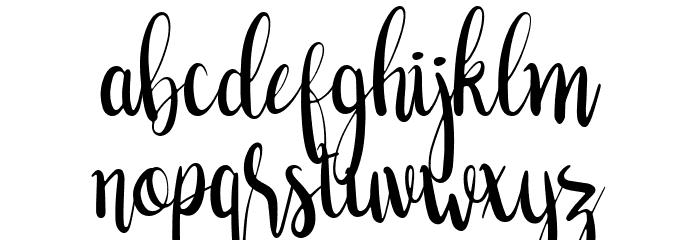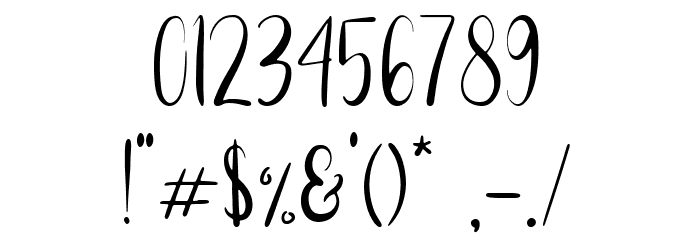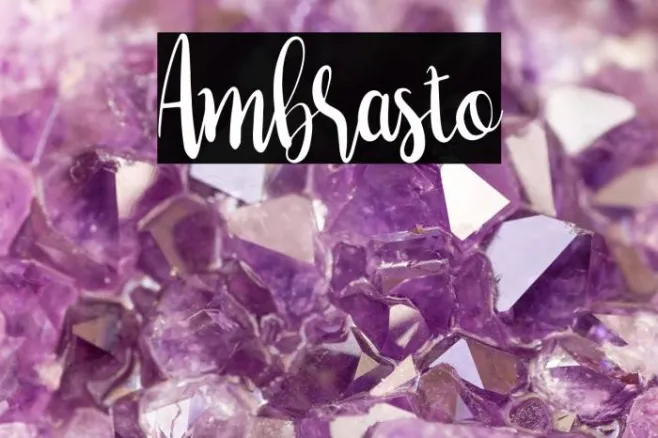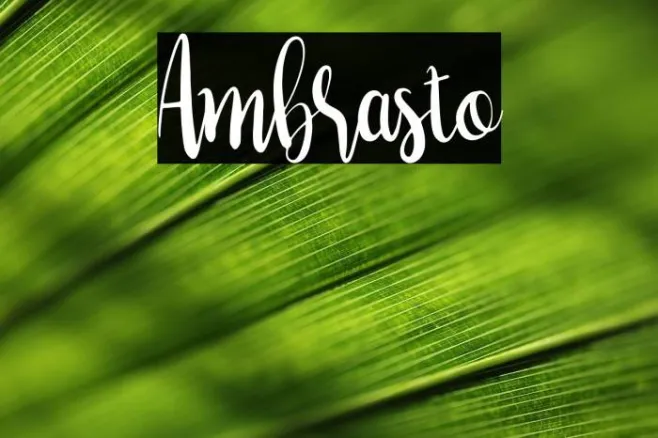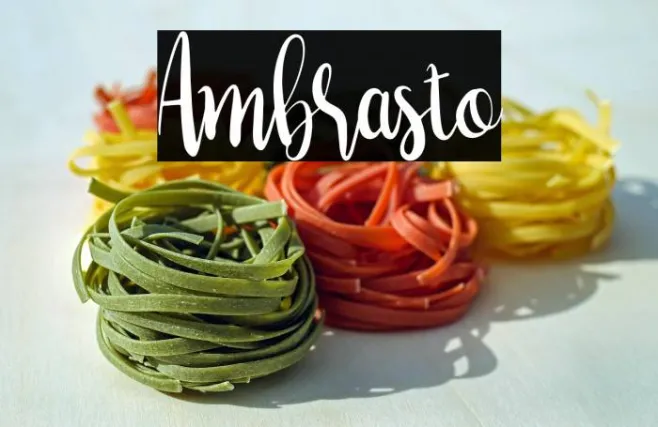
Ambrasto Font
This font exhibits a lively and dynamic handwritten style, characterized by its flowing and cursive letterforms. The uppercase letters are bold and expressive, with a slight slant that adds to the overall energetic feel. The lowercase letters maintain a consistent style, with smooth curves and loops that enhance readability while retaining a personal touch. The numerals are distinct and easy to read, complementing the alphabet with their consistent stroke weight. Special characters are creatively designed, fitting seamlessly into the font's aesthetic. The overall appearance is both elegant and playful, making it suitable for a variety of creative applications.
A lively, cursive handwritten font with expressive, flowing letterforms.
- Proposed Projects: Ideal for wedding invitations, greeting cards, branding projects, and social media graphics.
- Use Case: Logos, Invitations, Social Media